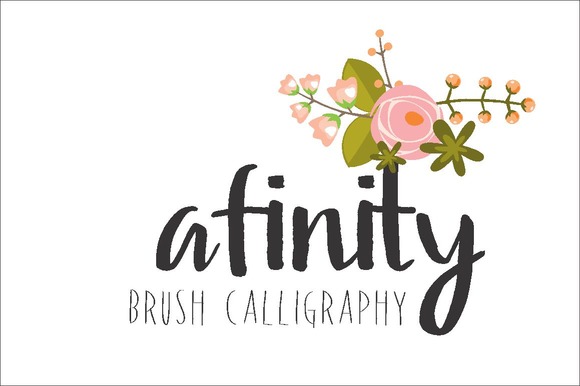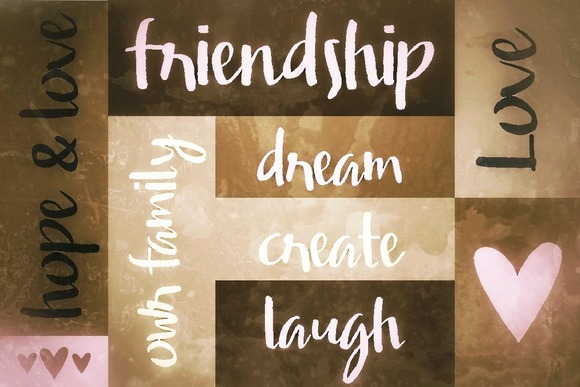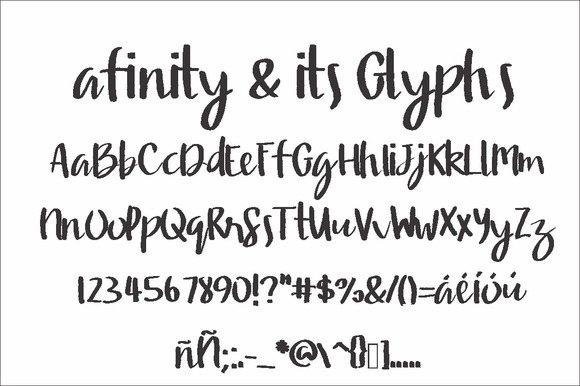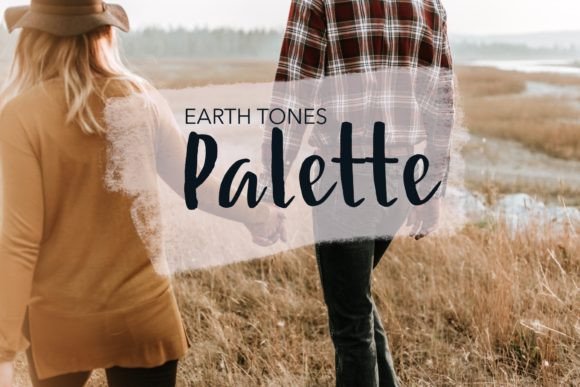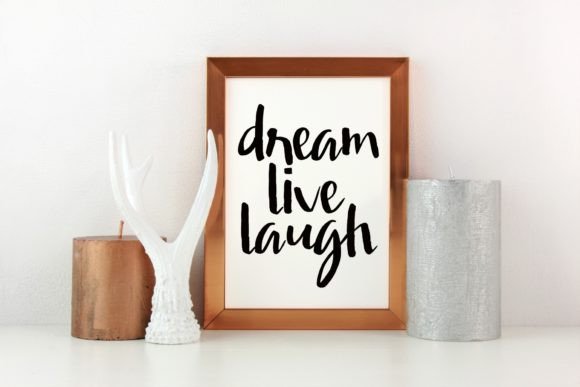
Afinity Font: Elevate Your Designs with Sophisticated Brush Calligraphy
In the world of typography, fonts play a crucial role in conveying the tone and personality of a design. For crafters and designers seeking to add a touch of elegance and sophistication to their projects, Afinity Font is an exceptional choice. This stunning brush calligraphy typeface boasts a serious and aligned look, making it perfect for a wide range of applications, from wedding invitations and branding materials to digital content and more.
What is Afinity Font?
Afinity Font is a beautifully crafted brush calligraphy typeface that exudes refinement and poise. Its unique blend of traditional calligraphy techniques and modern design elements results in a font that is both timeless and contemporary. With its smooth, flowing lines and carefully considered letterforms, Afinity Font is sure to elevate your designs and leave a lasting impression on your audience.
Key Features of Afinity Font
- Brush Calligraphy Style: Afinity Font features a distinctive brush calligraphy style that adds a touch of warmth and personality to your designs.
- Serious and Aligned Look: The font’s serious and aligned look makes it perfect for designs that require a level of formality and sophistication.
- Highly Legible: Afinity Font is designed to be highly legible, ensuring that your message is conveyed clearly and effectively.
- Versatile: This font is suitable for a wide range of applications, from print materials to digital content.
Use Cases for Afinity Font
Afinity Font is an incredibly versatile typeface that can be used in a variety of contexts. Here are some examples of how you can use this beautiful font:
- Wedding Invitations: Add a touch of elegance and sophistication to your wedding invitations with Afinity Font.
- Branding Materials: Use Afinity Font to create stunning branding materials, such as logos, business cards, and letterheads.
- Digital Content: Elevate your digital content, including blog posts, social media graphics, and email newsletters, with Afinity Font.
- Stationery: Create beautiful stationery, including notebooks, journals, and greeting cards, with Afinity Font.
Tips for Using Afinity Font
To get the most out of Afinity Font, here are some tips to keep in mind:
- Use it as a Headline Font: Afinity Font is perfect for use as a headline font, where its unique style and elegance can really shine.
- Pair it with a Sans-Serif Font: For body text, consider pairing Afinity Font with a clean sans-serif font to create a striking contrast.
- Experiment with Colors: Afinity Font looks stunning in a range of colors, so don’t be afraid to experiment and find the perfect hue for your design.
| Font Name | Afinity Font |
| Author | Carolina Mejia |
Afinity Font is a truly exceptional typeface that offers a unique blend of elegance, sophistication, and versatility. Whether you’re a designer, crafter, or simply someone who appreciates beautiful typography, Afinity Font is sure to inspire and elevate your designs. With its serious and aligned look, highly legible letterforms, and range of use cases, Afinity Font is an excellent choice for anyone looking to add a touch of refinement and poise to their projects.